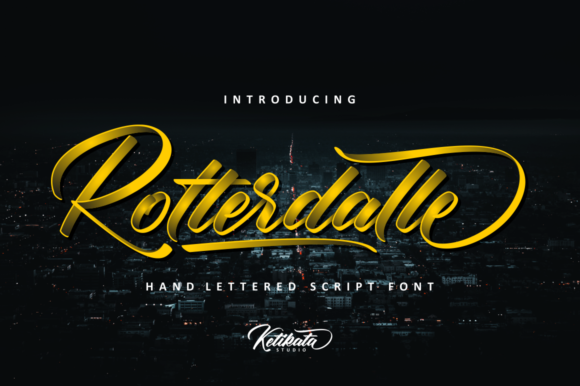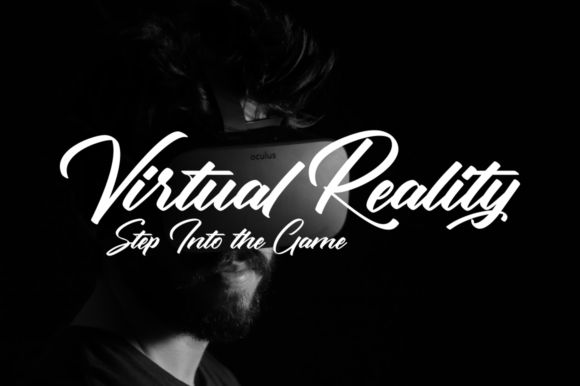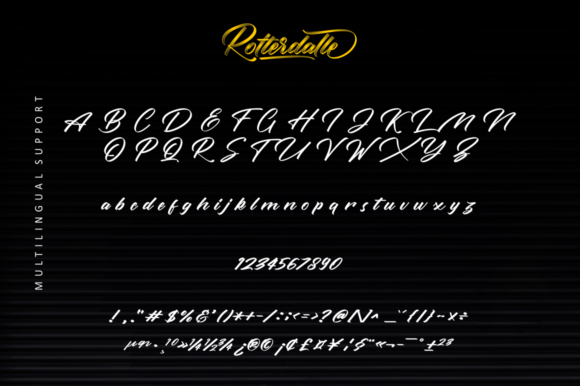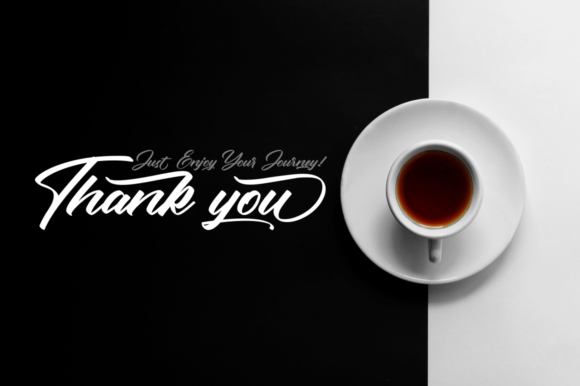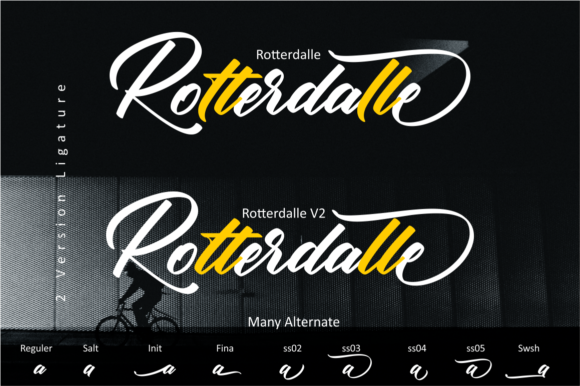
About Rotterdalle Script Font
The Rotterdalle is a striking hand-lettered script font. It was carefully crafted from a sketch and has a young and energetic feel which can be used to create an unique logotypes, name tags, quotes, business cards, apparel, packaging and much more!
It was carefully made so that each letter could be connected well and elegantly either using alternates or not.